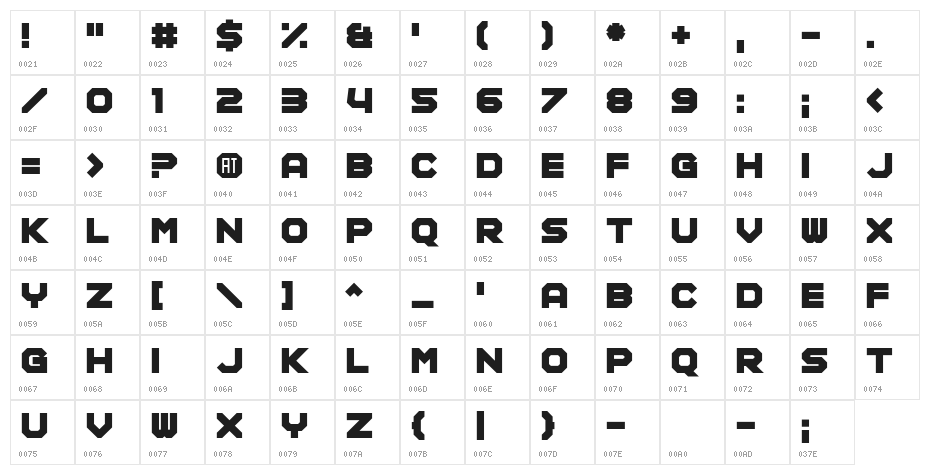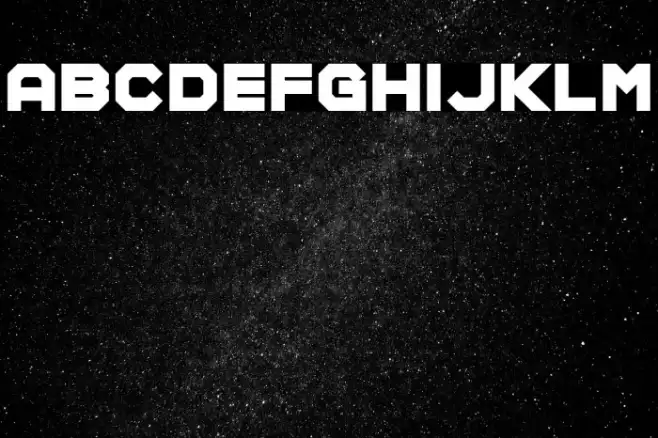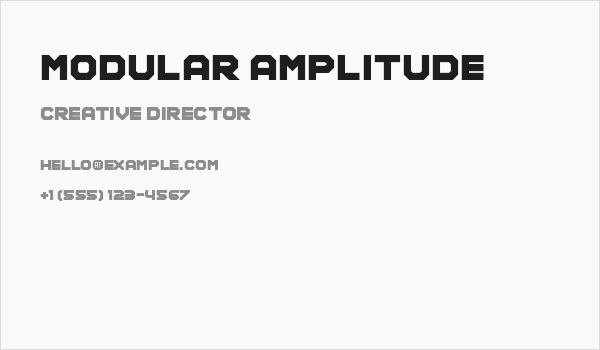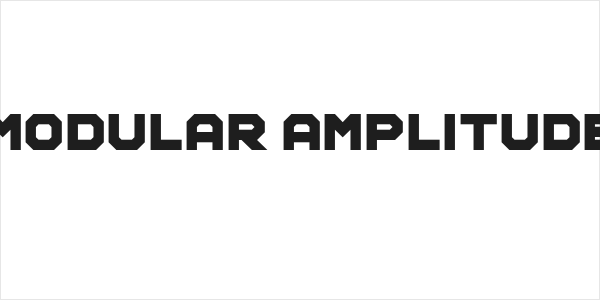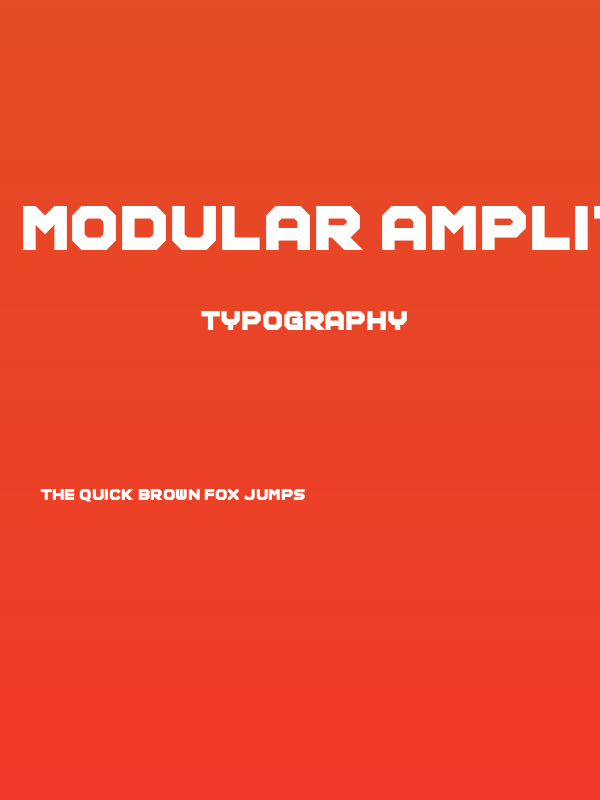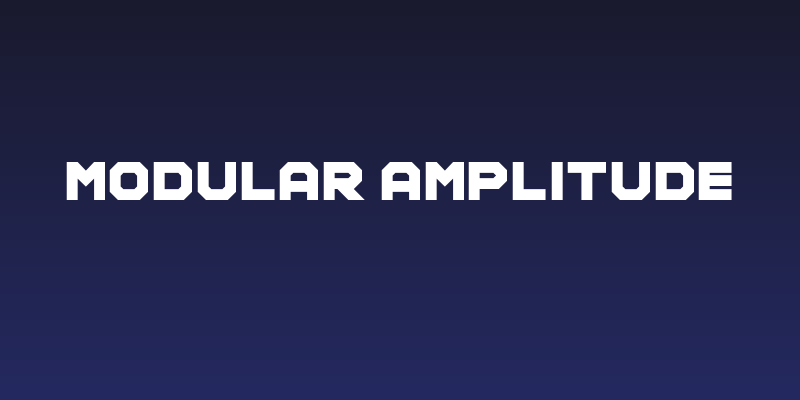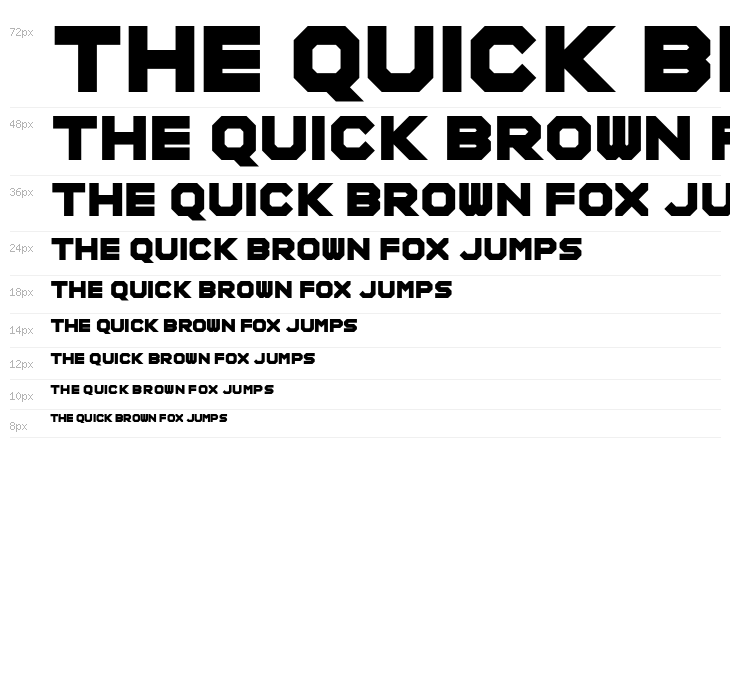
Modular Amplitude Font
Modular Amplitude Description
This font features a bold, geometric design with a modular structure, characterized by its angular and blocky appearance. The letters are constructed with sharp edges and consistent stroke widths, giving it a futuristic and industrial feel. The uppercase and lowercase letters maintain a uniform height, enhancing its cohesive look. The numerals and special characters follow the same design principles, ensuring a seamless integration across different text elements. The font's distinct style makes it highly suitable for modern and tech-oriented projects.
Proposed ProjectsIdeal for tech branding, video game titles, posters, and futuristic design projects.